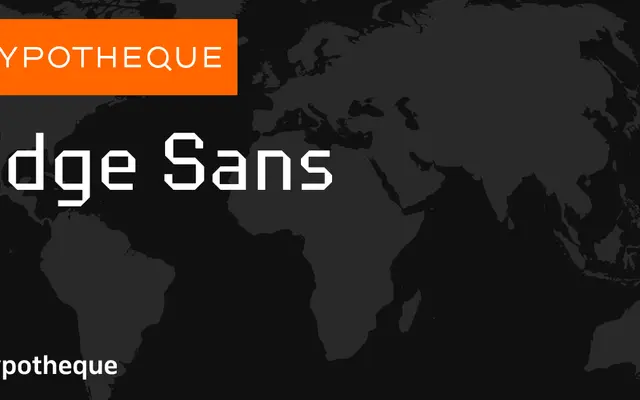
Edge Sans specimen from Typotheque
A geometric sans-serif from Typotheque offered in two subfamilies, Edge Sans and Edge, each spanning nine weights with matching italics.
The family is structured around two subfamilies, Edge Sans and Edge, each running from Thin to Black with corresponding italic cuts, giving eighteen styles in total. Individual weights are sold separately under city names, from Amsterdam through Reykjavík, suggesting the family is intended for international and multilingual contexts. The clean, even construction suits both editorial and identity work.
Edge Sans presents clean, geometric letterforms typical of a contemporary geometric sans-serif. The system overview and specimen suggest a neutral, functional design suited to both text and display use.